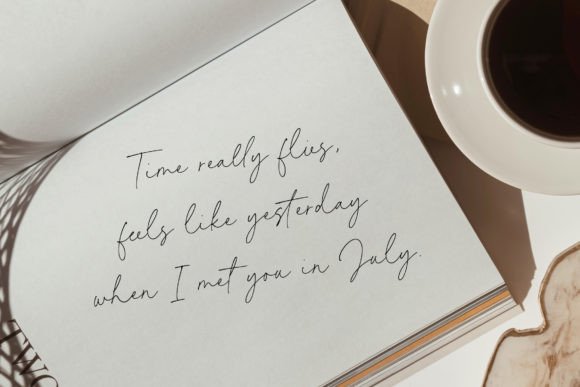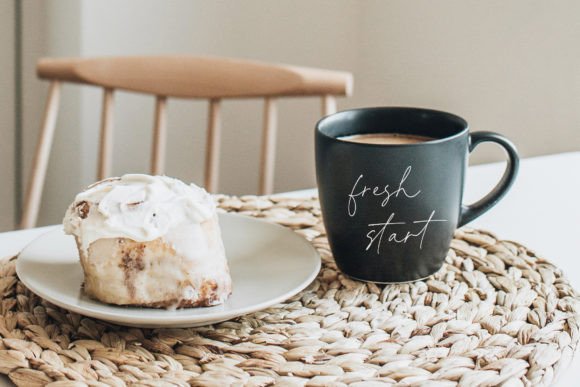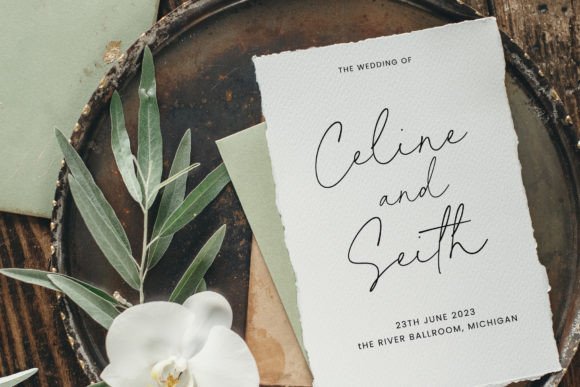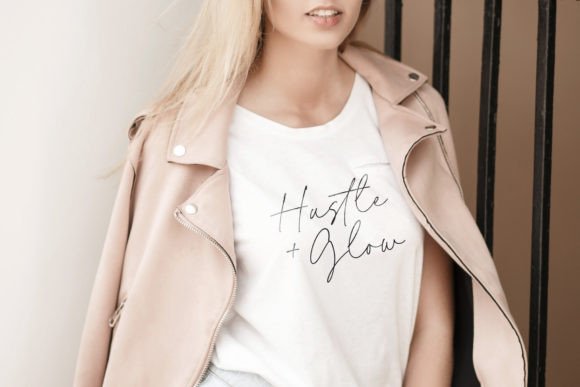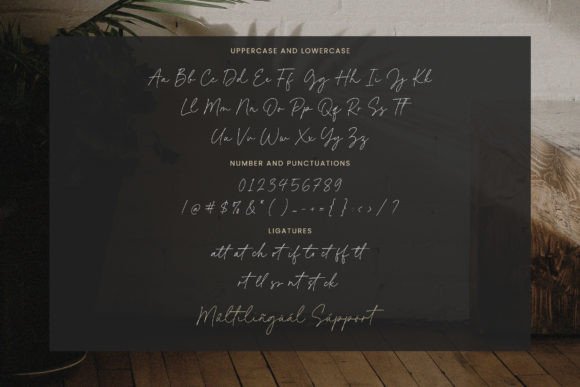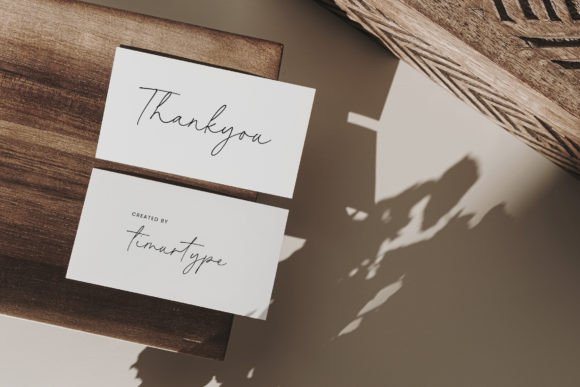
Discover the Whimsy of Kimberly Paradise Font
Have you ever been struck by the magic of a handwritten note, the way it brings a smile to your face and warmth to your heart? For designers, that same magic is what drives us to create and inspire with our craft. Introducing the Kimberly Paradise Font, a beautiful handwritten script font that’s sure to capture the essence of your creative vision.
Designed with love and care, the Kimberly Paradise Font is perfect for any project that requires a touch of elegance and whimsy. Whether you’re working on product packaging, branding, magazine layouts, social media graphics, or wedding invitations, this font is sure to elevate your designs and make them truly special. With its multilingual support and versatility, the Kimberly Paradise Font is a valuable addition to any designer’s toolkit.
Kimberly Paradise Font Key Features
- Font Family: Kimberly Paradise
- Font Styles: Regular, Bold, Italic, Bold Italic
- Character Set: Latin, Cyrillic, Greek, and Extended Latin characters
Kimberly Paradise Font Review
Overall, I think the Kimberly Paradise Font is a great choice for those looking for a playful and elegant font. ✨ It has a unique combination of cursive and script elements that make it stand out from other fonts.
The font is available in multiple weights and styles, making it versatile for various design projects. ✨ It’s also highly legible, even at small font sizes, which is a major plus.
- ⚠️ The font may not be suitable for formal or professional designs, as it has a more whimsical feel.
- ⚠️ Some letters may not be perfectly connected, which can affect the overall flow of text.
- ⚠️ The font may not be compatible with all operating systems or devices.
Despite its limitations, I think the Kimberly Paradise Font is a great choice for designers looking for a unique and playful font. It’s perfect for projects like wedding invitations, greeting cards, or children’s books. If you’re looking for a font that adds a touch of elegance and whimsy to your design, the Kimberly Paradise Font is definitely worth considering.
Tips for Getting the Most Out of the Kimberly Paradise Font
Use the Kimberly Paradise Font for creating whimsical and playful designs, such as:
- Invitations and event planning materials
- Children’s books and educational materials
- Branding and marketing materials for creative businesses
Experiment with different font sizes, colors, and combinations to achieve a unique look.
The Great Vibes Font is a beautiful, handwritten script font that’s perfect for creating a whimsical and elegant feel. It’s ideal for wedding invitations, quotes, and other creative projects where a touch of personality is needed. Compared to Kimberly Paradise Font, Great Vibes Font has a more playful and carefree vibe, making it a great choice for designers who want to add some fun and flair to their designs.
The Carolyna Pro Font is a modern, elegant script font that’s perfect for creating a sophisticated and refined look. It’s ideal for corporate branding, luxury packaging, and other high-end projects where a touch of sophistication is needed. Compared to Kimberly Paradise Font, Carolyna Pro Font has a more polished and refined feel, making it a great choice for designers who want to create a high-end look.
The Alex Brush Font is a beautiful, handwritten script font that’s perfect for creating a personal and emotional feel. It’s ideal for quotes, poetry, and other creative projects where a touch of warmth and intimacy is needed. Compared to Kimberly Paradise Font, Alex Brush Font has a more personal and emotional vibe, making it a great choice for designers who want to create a connection with their audience.